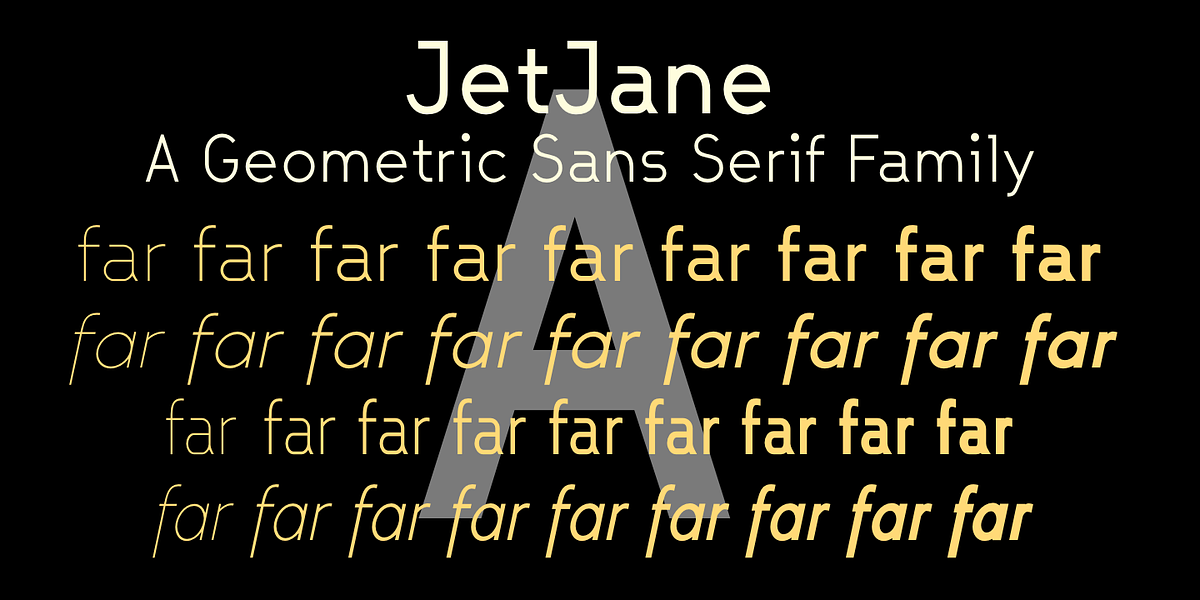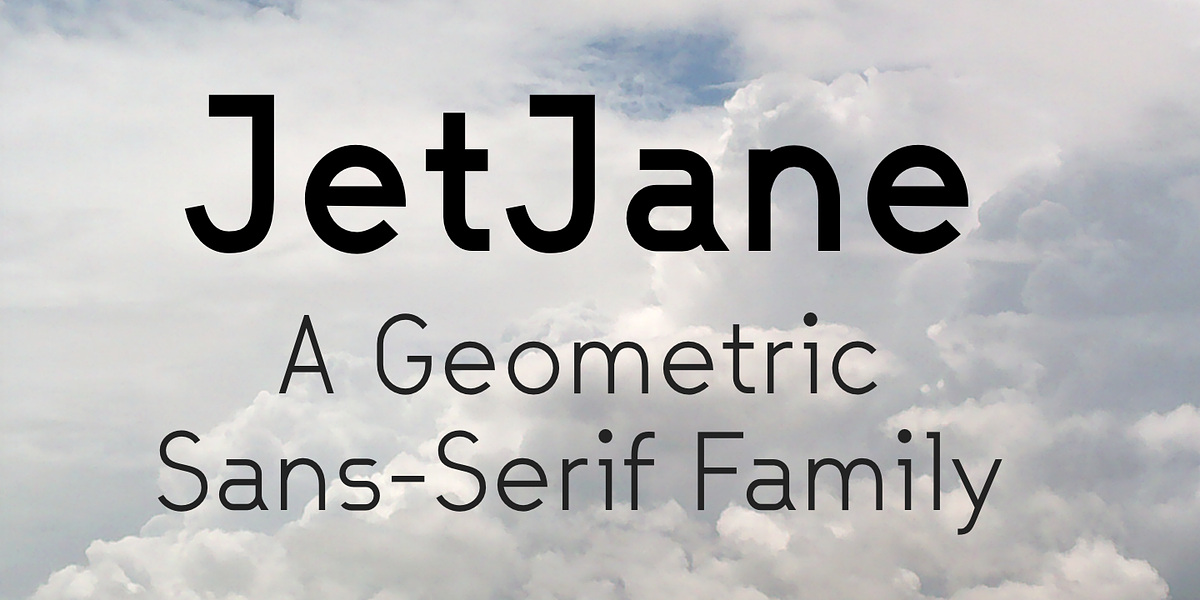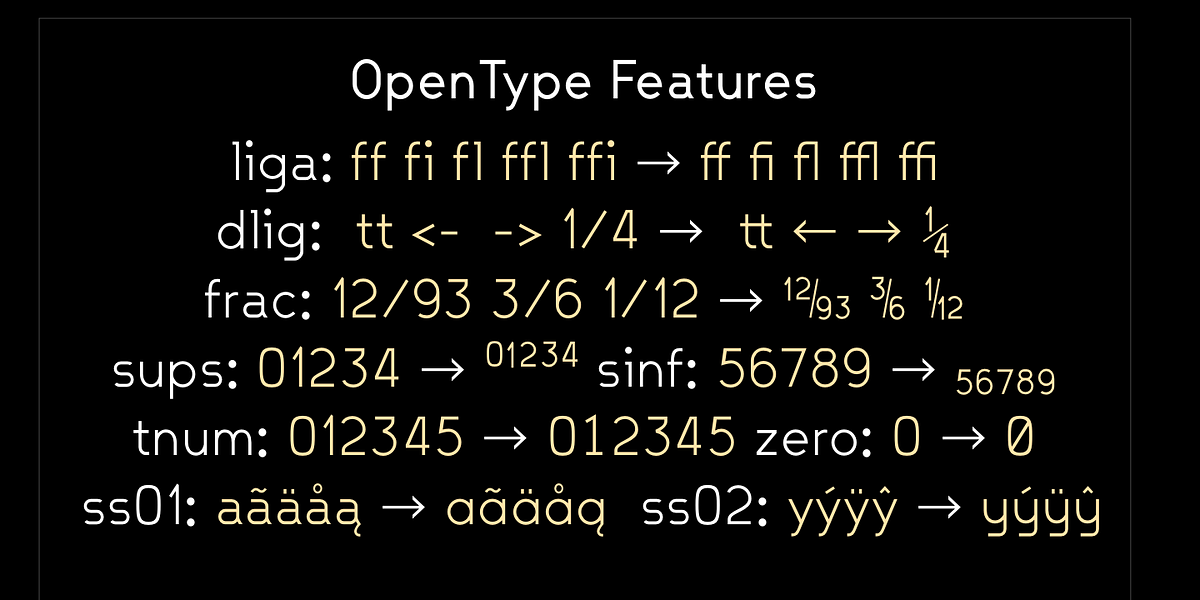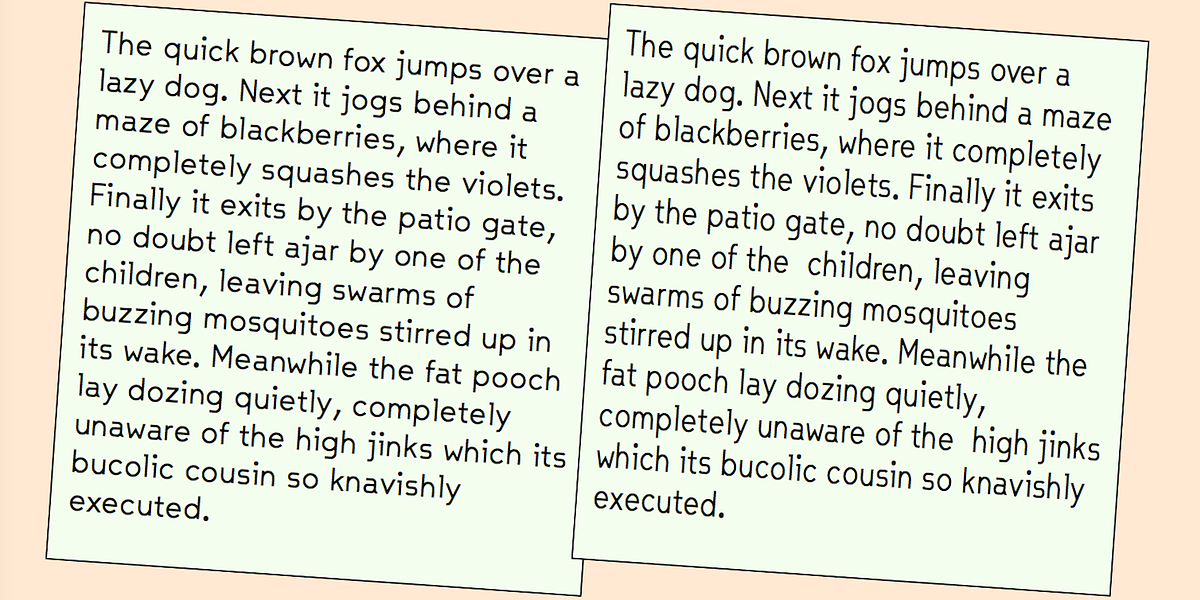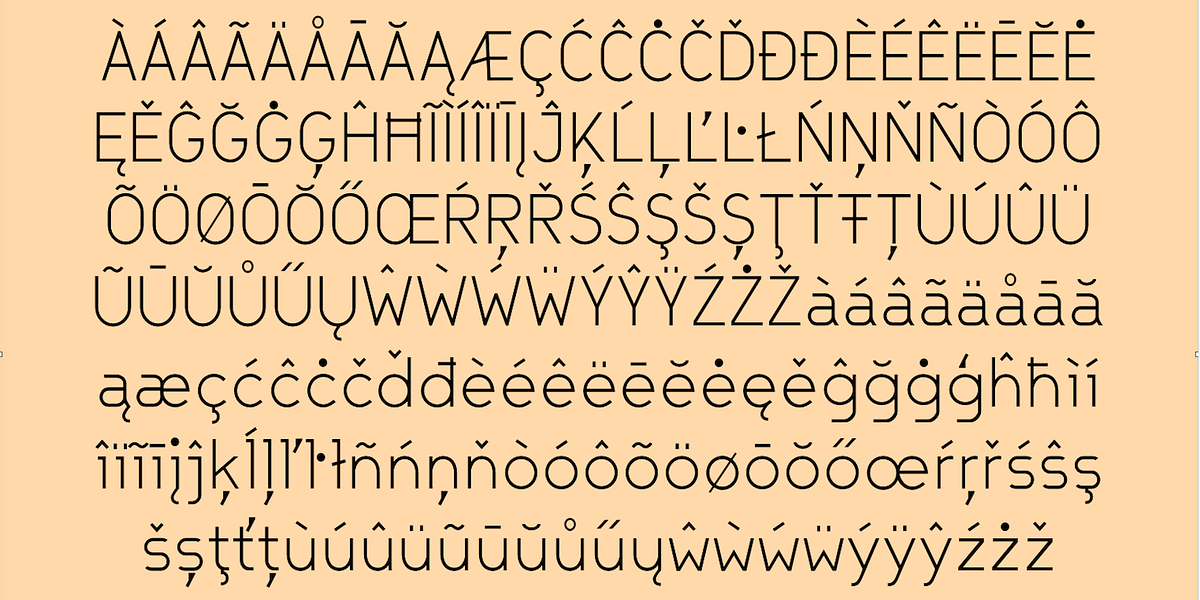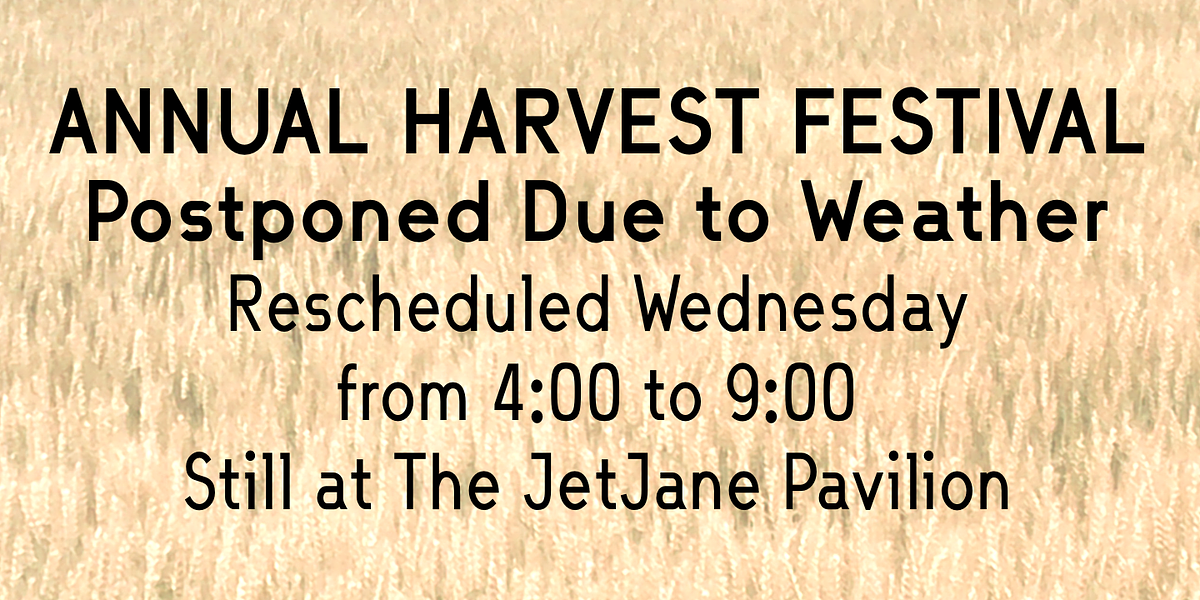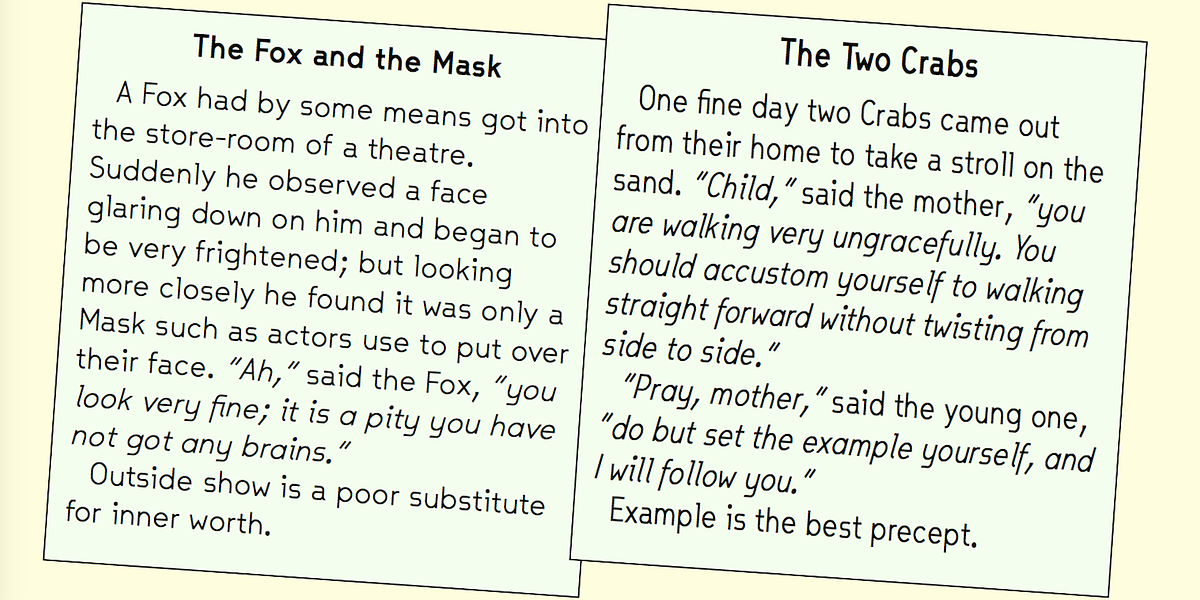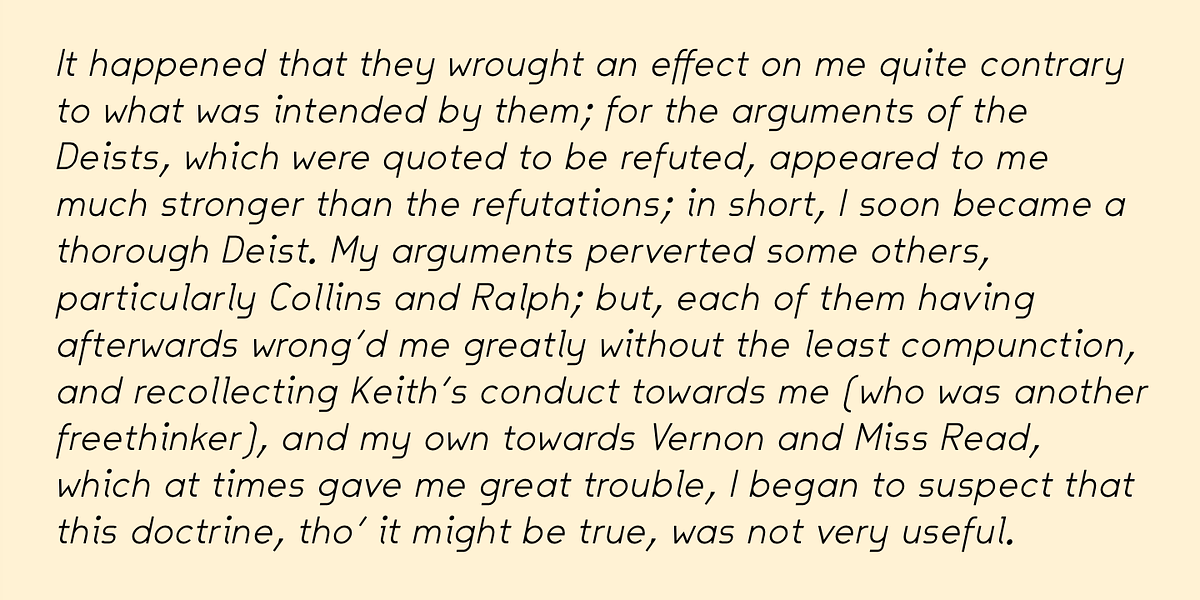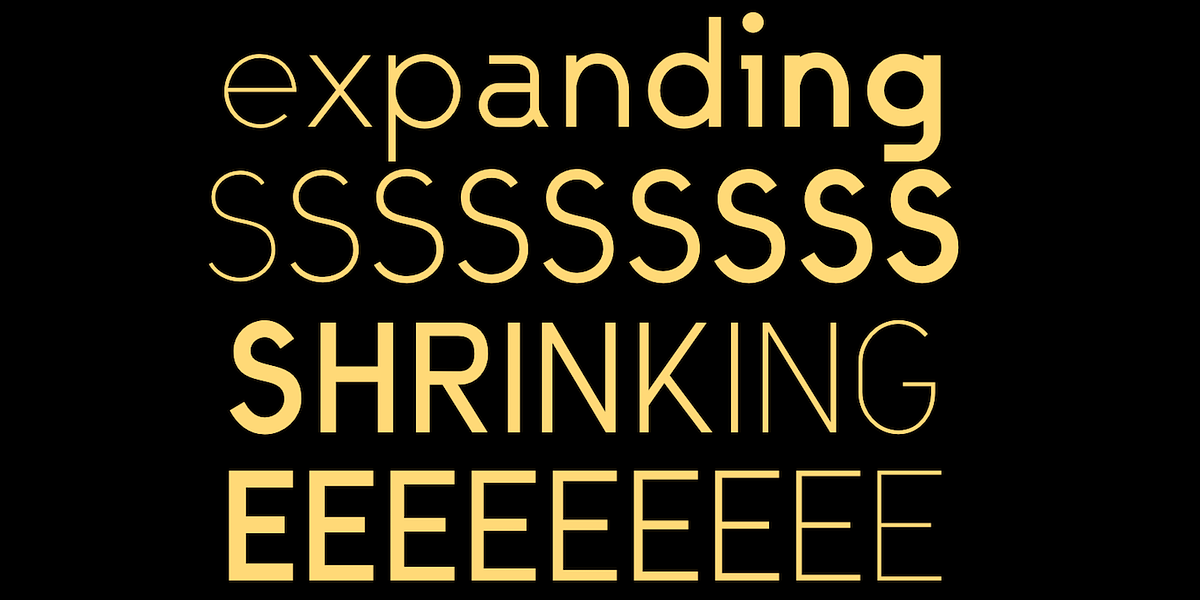
JetJane
JetJane is a geometric sans-serif font family notable for its high legibility and clean, unadorned design. It offers a comprehensive range of weights and widths, making it suitable for both body text and display applications. The fact that JetJane was developed from a monospaced variant (JetJaneMono) is unusual and contributes to some distinctive features compared to other geometric sans-serif fonts from the same foundry.